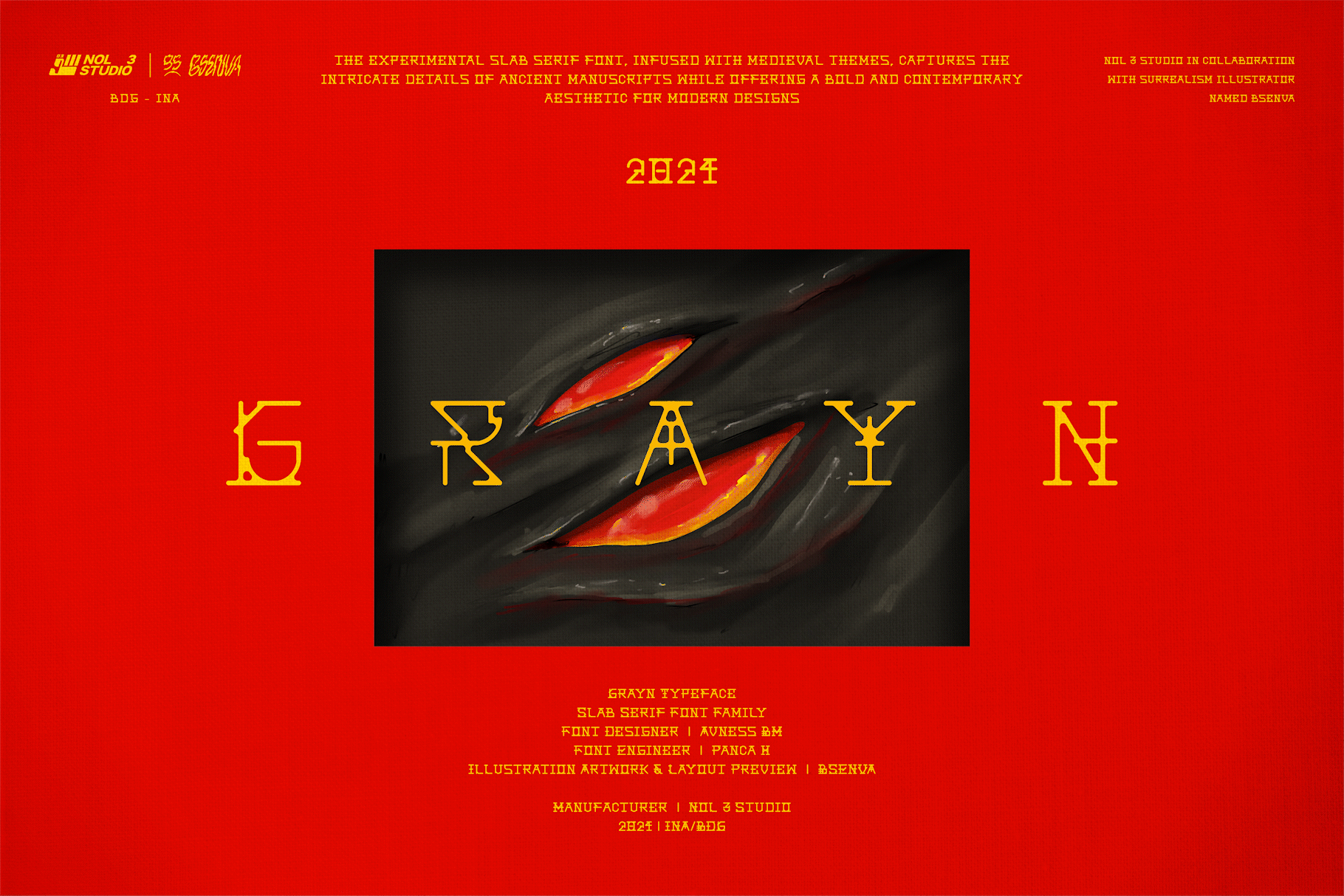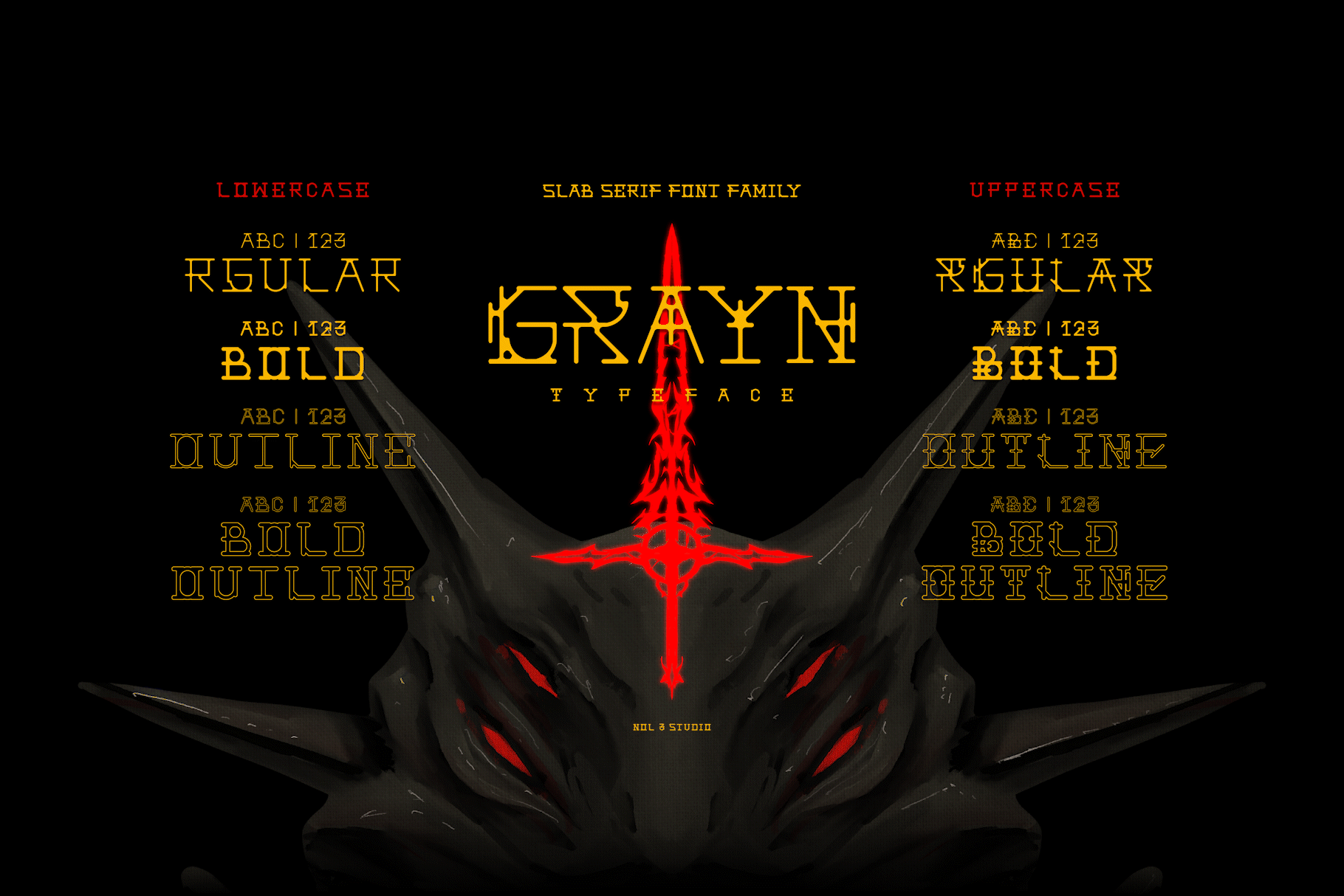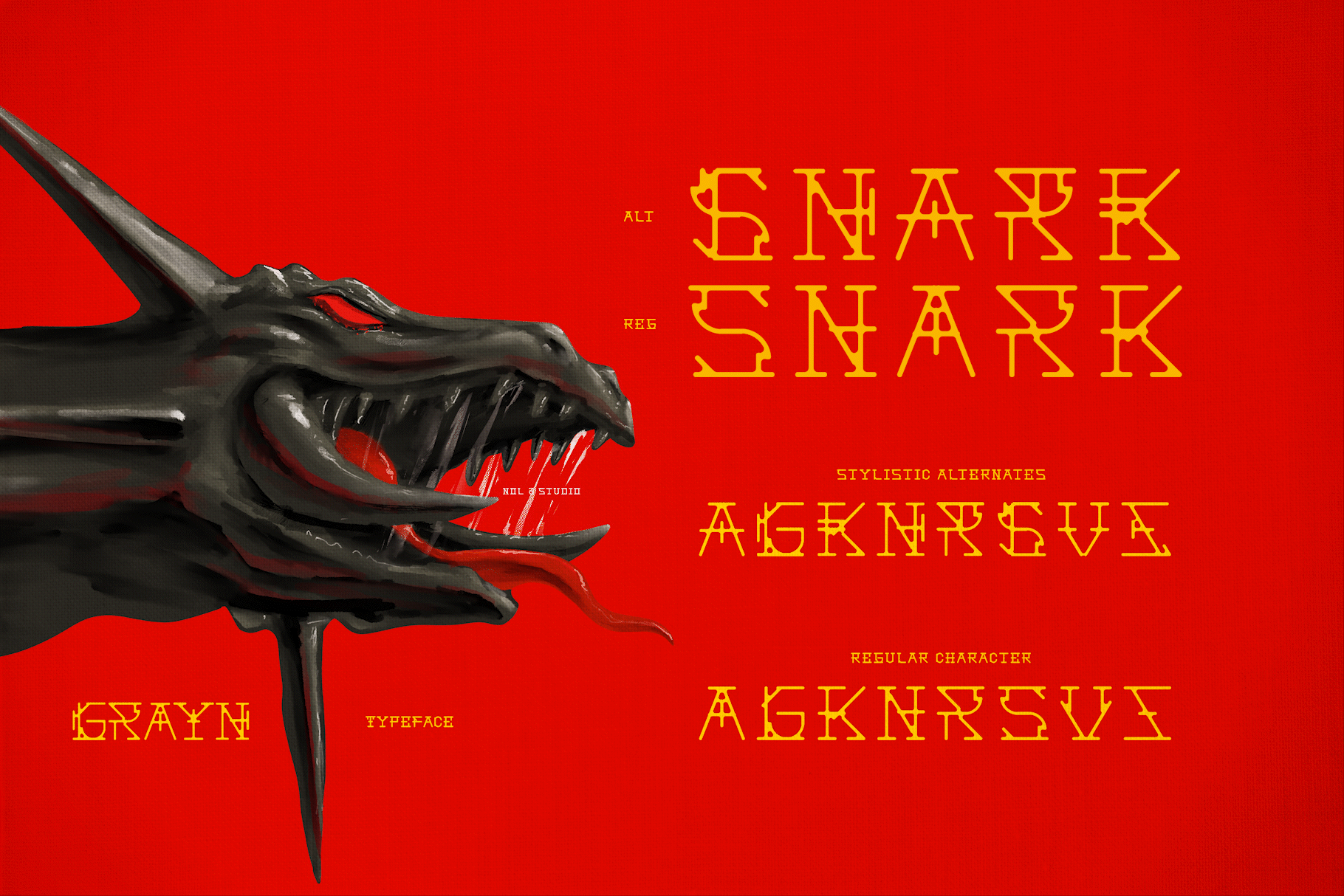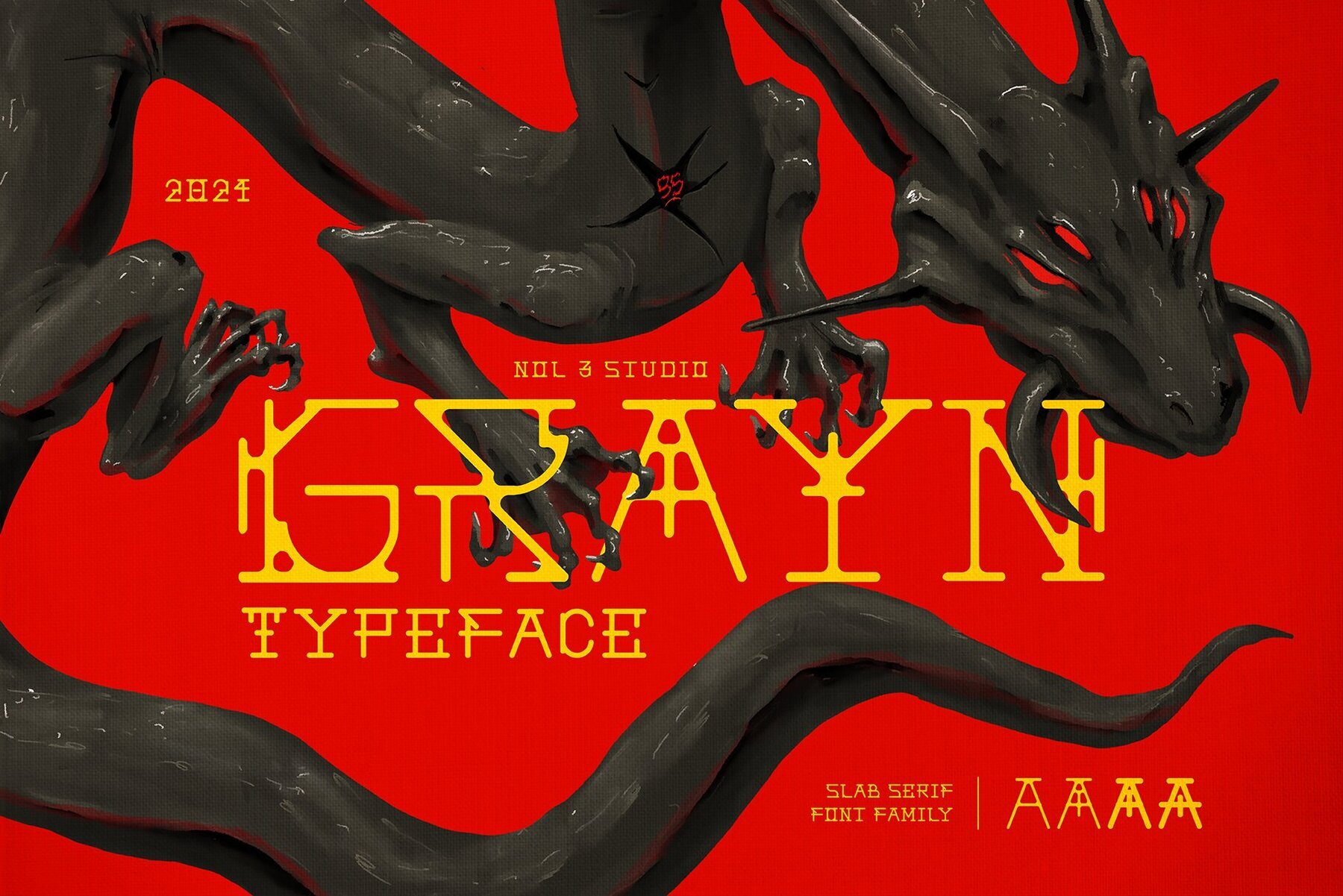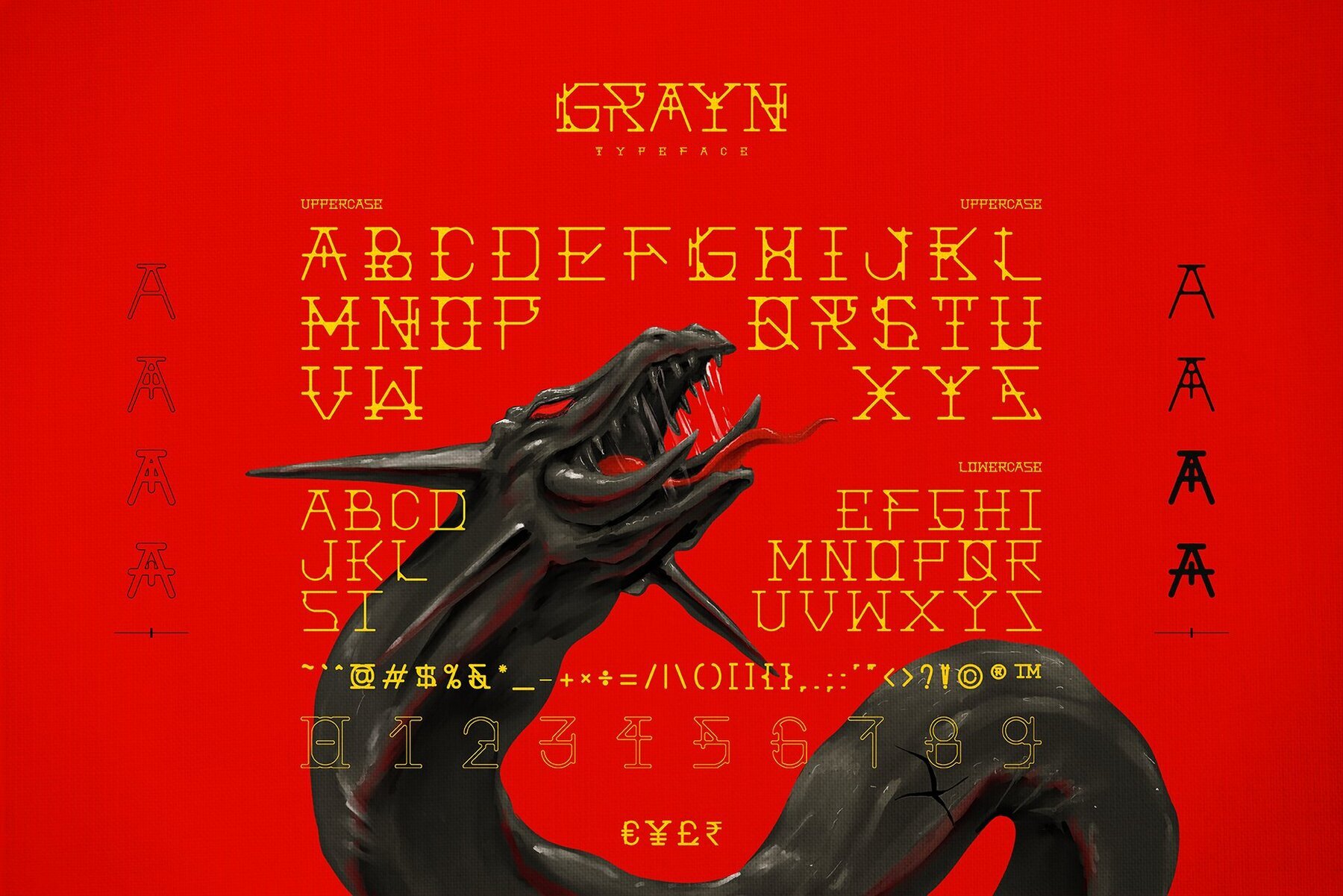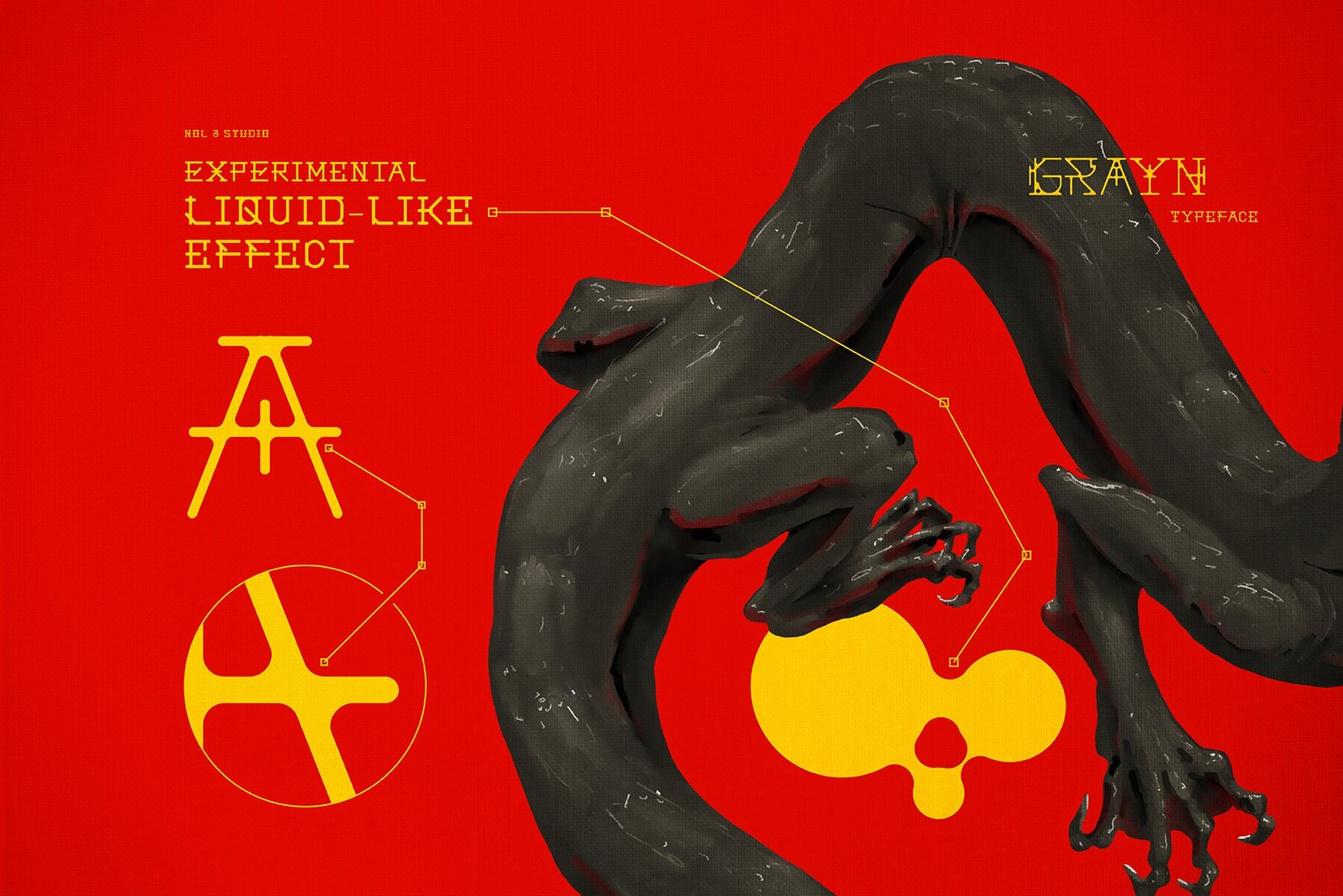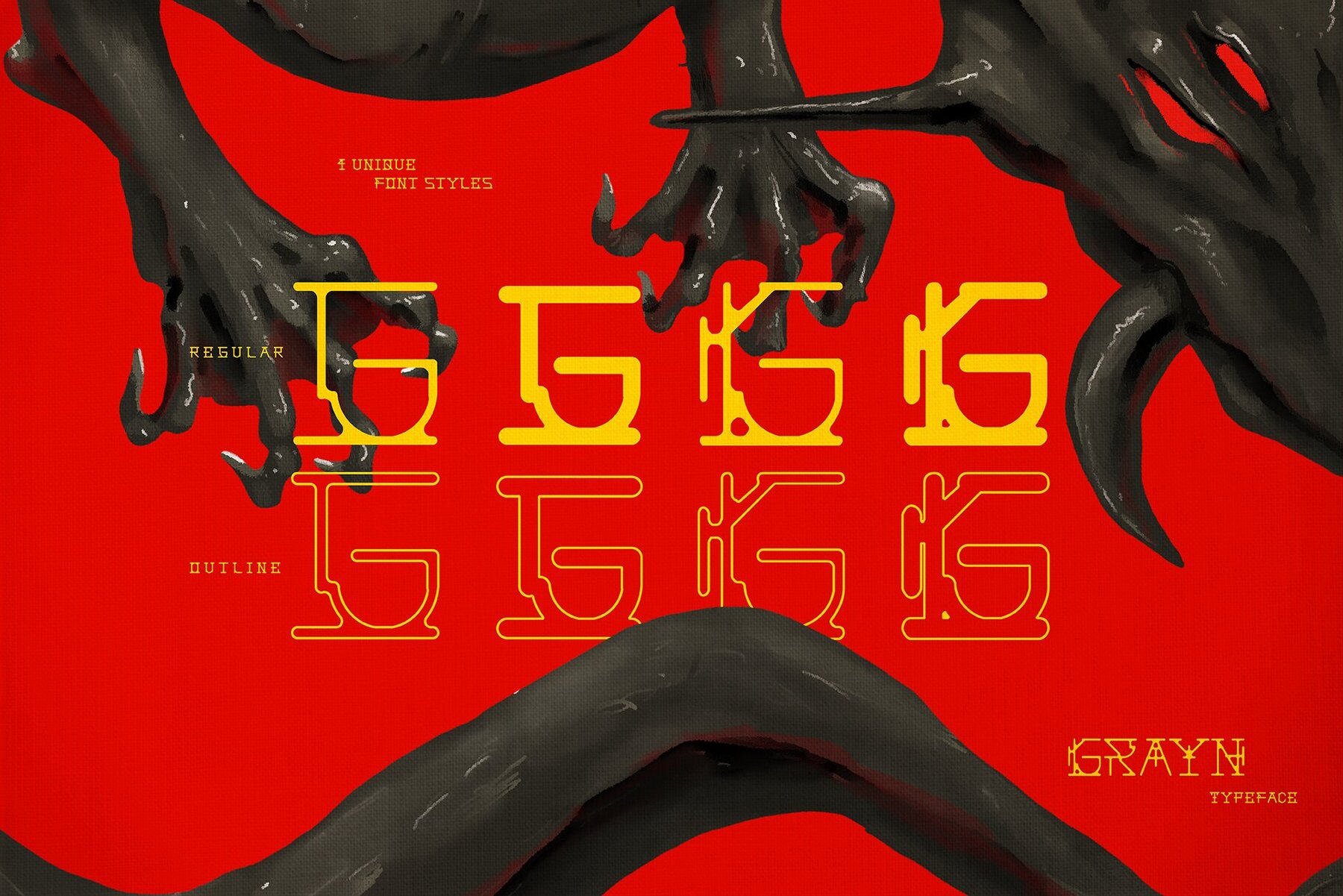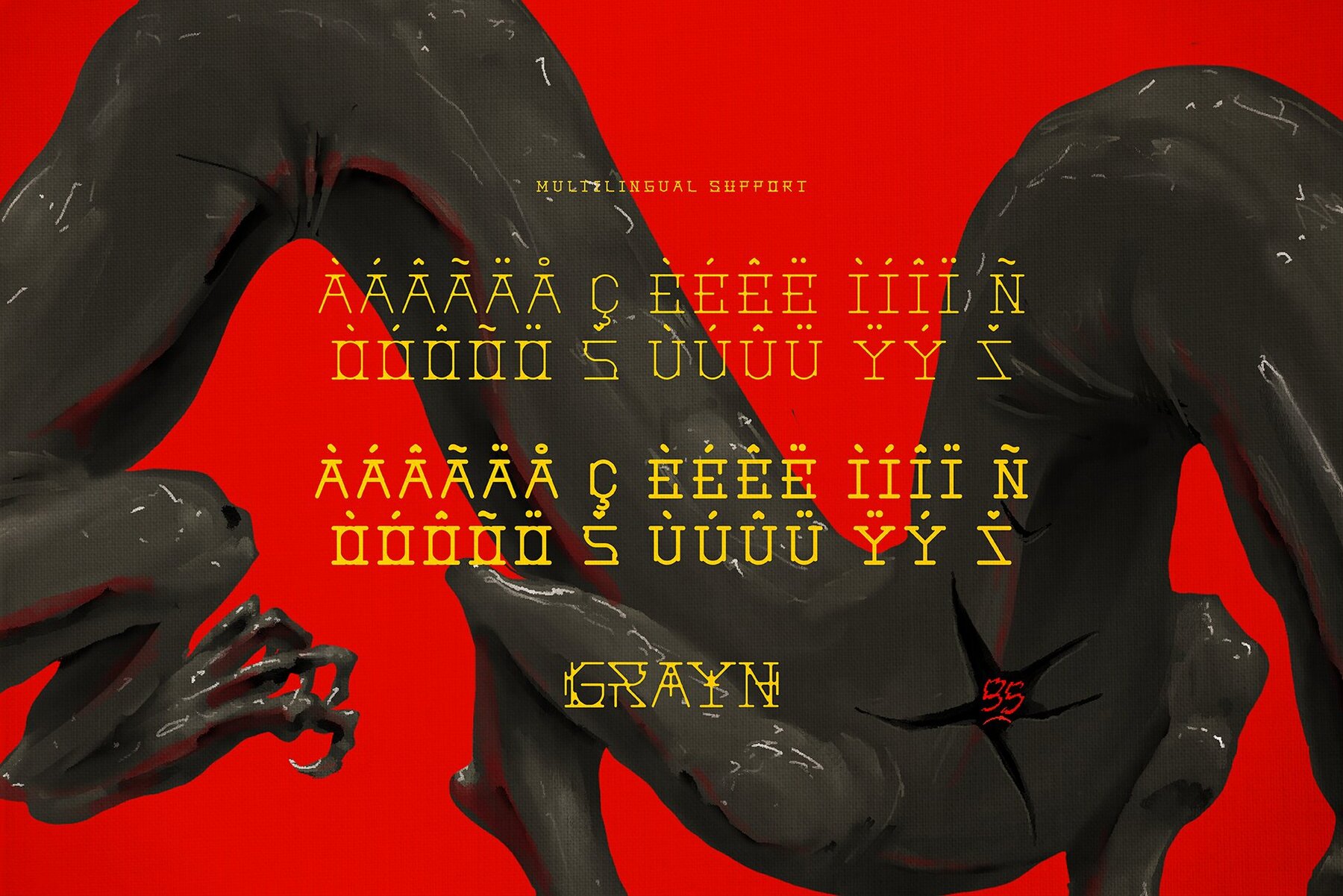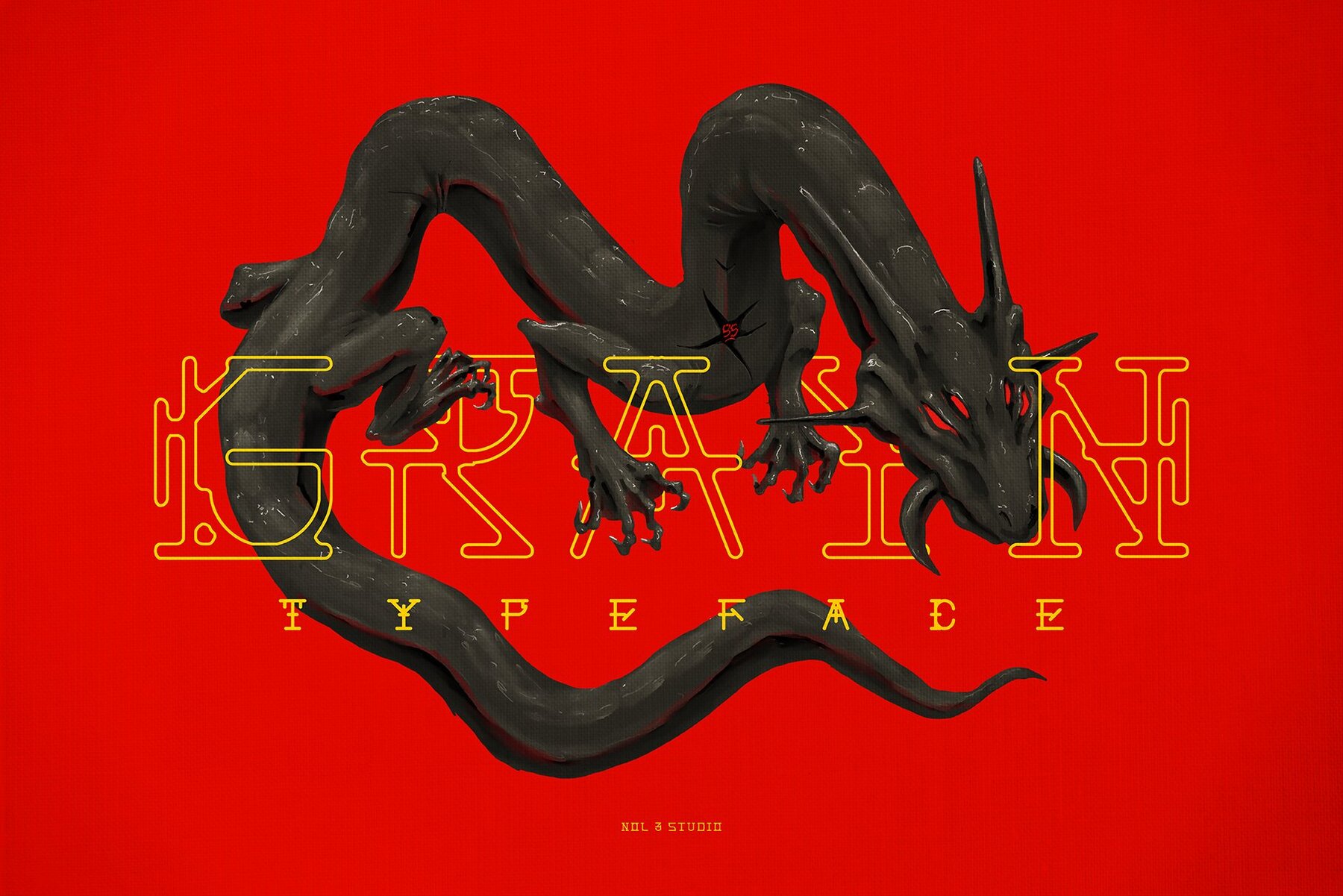
Grayn Font
Grayn is an experimental slab serif font that combines medieval themes with a contemporary aesthetic. This unique typeface brings to life the intricate details of ancient manuscripts while offering a fresh, bold look for modern design projects. Ideal for graphic and digital designers seeking to add a touch of historical elegance to their work, Grayn effortlessly blends tradition with innovation.
Key features of Grayn include over 200 glyphs and four distinct font styles: Regular, Bold, Outline, and Outline Bold. The typeface includes uppercase, lowercase, and extra stylistic alternates, providing designers with versatile options to enhance their creative projects. Additionally, it features numbers, punctuation, and comprehensive multilingual support, making it a valuable tool for dynamic and diverse design applications.